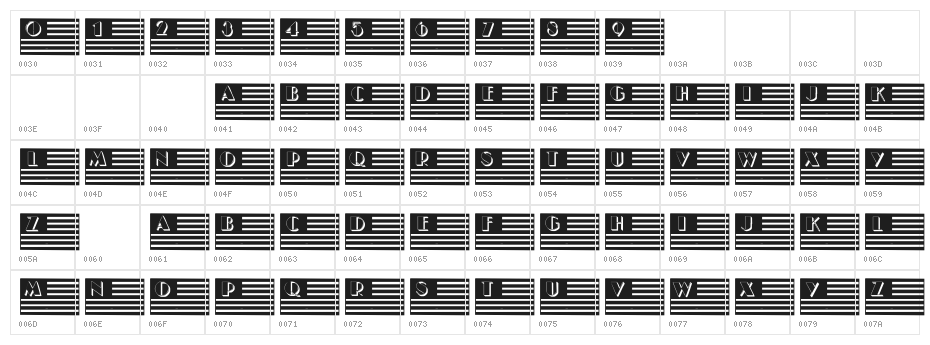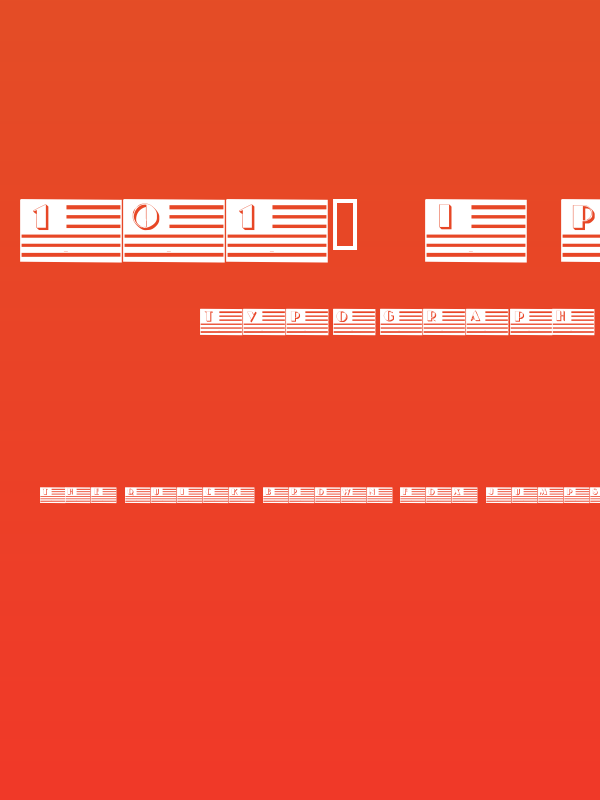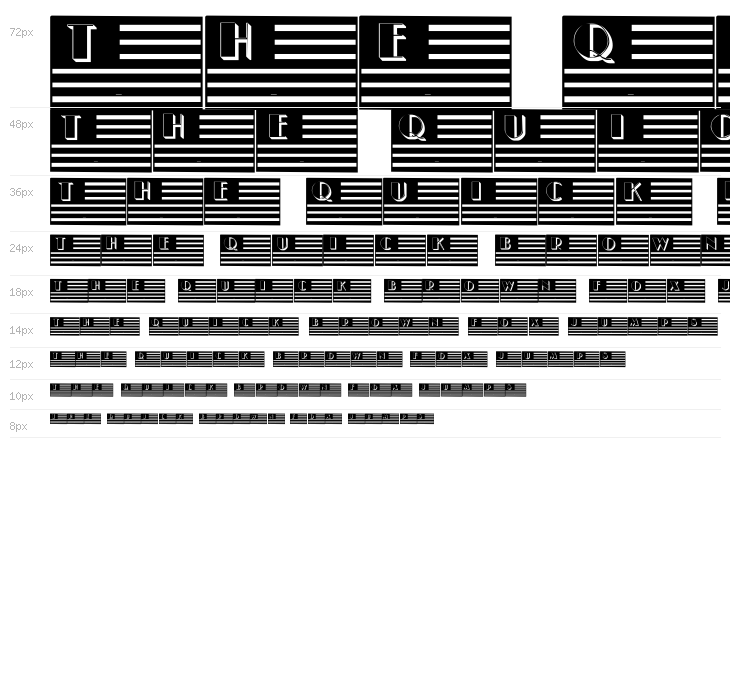
101! I Pledge Allegiance Font
101! I Pledge Allegiance Description
This font features a unique design where each character is enclosed within a rectangular box, reminiscent of a flag or banner. The letters and numbers are bold and capitalized, with a distinct horizontal line pattern running through each character, giving it a structured and uniform appearance. The style is highly decorative, making it stand out for specific thematic uses. The characters are evenly spaced within their boxes, ensuring clarity and readability despite the intricate design. This font is ideal for projects that require a patriotic or ceremonial theme, as it evokes a sense of formality and tradition.
Proposed ProjectsIdeal for patriotic posters, ceremonial invitations, themed banners, and decorative signage.